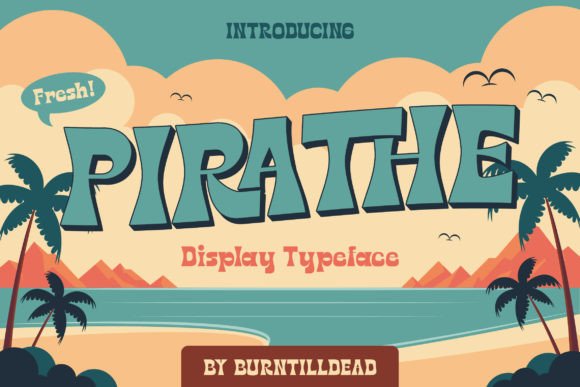
Pirathe: The Groovy Display Font for Retro Editorial Design
In the world of digital publishing and editorial design, typography is never just about readability; it is about voice. Every time a reader opens a blog post, flips through an ebook, or scans a newsletter, they are subconsciously absorbing the tone set by your type choices. If you are looking to inject a specific kind of nostalgia, warmth, and playful energy into your content, Pirathe offers a distinct visual personality that stands out in a sea of minimalist sans serifs.
As a publisher and designer who values both aesthetic appeal and functional clarity, I have found that display fonts like Pirathe can transform static text into engaging visual experiences. This retro-inspired typeface captures the positive vibes of the 1960s and 70s, offering a "sooky sooky" charm that feels both off the hook and slamming’ modern. Whether you are designing a magazine cover, a lead magnet, or a social media graphic for your brand, understanding how to wield this creative font effectively is key to building a cohesive brand identity.
Understanding the Visual Personality of Pirathe
Pirathe is not a body copy font. It is a display font designed to grab attention, set a mood, and act as the primary visual hook in any layout. Its style leans heavily into mid-century modern aesthetics, characterized by rounded edges, fluid curves, and a sense of movement that mimics the hand-lettered signs and poster art of the swinging sixties. When you use Pirathe, you are immediately signaling to your audience that your content is approachable, fun, and perhaps a bit unconventional.
The visual weight of Pirathe allows it to serve as a powerful tool for hierarchy. In editorial layouts, where space is at a premium, having a typeface that commands attention without requiring large point sizes is invaluable. It works exceptionally well for headlines, pull quotes, and section dividers. However, because of its strong character, it requires careful handling. It should never be used for long-form paragraphs, as the decorative nature of the letters can fatigue the eye during extended reading sessions. Instead, think of Pirathe as the accent piece in your room—it draws the eye, but the furniture (your body text) needs to be comfortable and neutral.
Strategic Applications in Digital Publishing
The versatility of Pirathe makes it suitable for a wide range of publishing formats. Here is how this typeface can elevate specific types of content:
- Blog Headers and Featured Images: For lifestyle bloggers or creative entrepreneurs, using Pirathe for the main title on your featured image creates an immediate connection with readers who appreciate vintage aesthetics. It breaks the monotony of standard grid-based blog designs.
- Ebook Covers and Chapter Openers: If you are self-publishing a guide, workbook, or novel, Pirathe adds a touch of indie flair. It is perfect for chapter titles or epigraphs, helping to structure the reading experience while maintaining a consistent visual theme throughout the document.
- Newsletter Graphics: Email marketing relies heavily on quick scanning. Using Pirathe for subject lines (in graphics) or for highlighting key takeaways within the email body can increase engagement. It signals that the content inside is curated with care and creativity.
- Printable Guides and Worksheets: For course creators selling digital downloads, Pirathe is excellent for headers in worksheets, planners, and checklists. It makes mundane tasks feel more inviting and less like homework.
- Social Media Quote Cards: As a display font, Pirathe shines in square-format graphics. Pairing a short, punchy quote in Pirathe against a solid color background creates a striking image that performs well on platforms like Instagram and Pinterest.
Font Pairing for Balanced Editorial Layouts
One of the most common mistakes designers make is letting a display font do all the heavy lifting. To maintain professionalism and readability, Pirathe must be paired with complementary typefaces. The goal is to create contrast between the expressive headline and the functional body text.
For a classic editorial look, pair Pirathe with a reliable serif font. A traditional serif provides a grounding effect, balancing the whimsical nature of the display font. This combination works beautifully for literary magazines, book reviews, or historical blogs where you want to evoke a sense of tradition mixed with modern playfulness.
Alternatively, for a cleaner, more contemporary vibe, pair Pirathe with a geometric sans serif font. This pairing is ideal for tech blogs, startup newsletters, or modern coaching brands. The clean lines of the sans serif counteract the curves of Pirathe, creating a dynamic tension that keeps the design fresh. Use the sans serif for navigation menus, captions, and body paragraphs to ensure high legibility on mobile devices.
Avoid pairing Pirathe with other script fonts or handwritten fonts unless you are highly experienced in typography. Combining multiple decorative typefaces often results in visual clutter, making your content harder to parse. Stick to one display font per layout to let Pirathe shine.
Ultimately, Pirathe is more than just a retro fun font; it is a strategic asset for editors and designers who want to stand out. By using it thoughtfully alongside readable body text and adhering to best practices in licensing, you can create publications that are not only visually stunning but also professionally sound. Embrace the groovy vibes, but keep the structure solid.